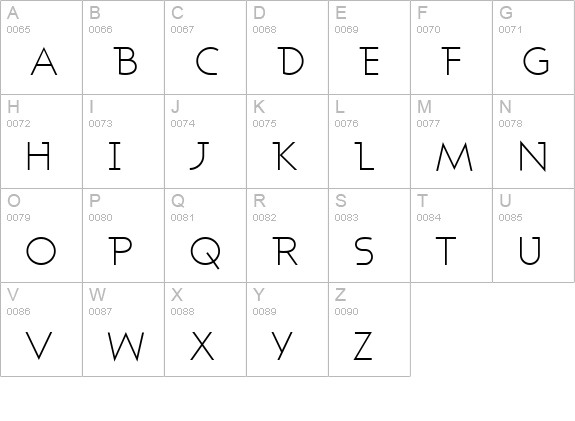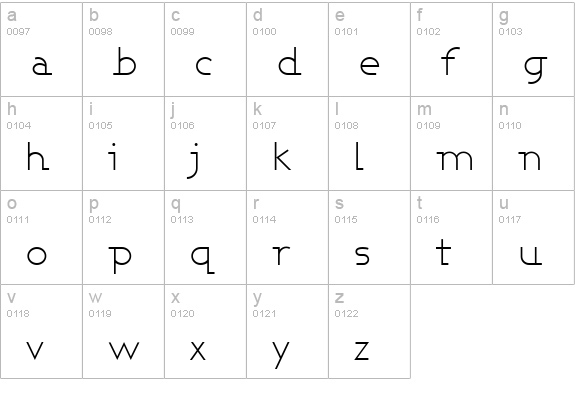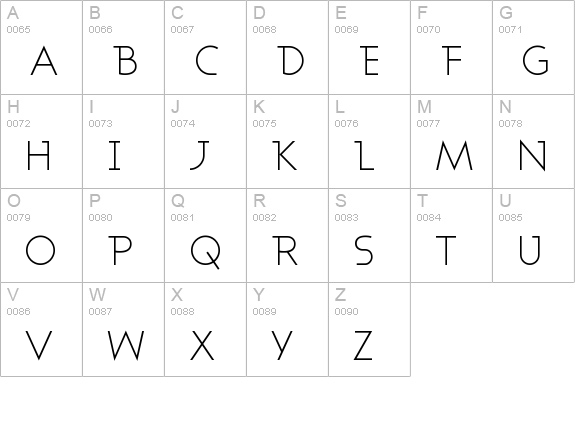
Ashby Light Font Details
Ashby Light is a refined, elegant variant in the Ashby typeface family \xE2\x80\x94 well suited to elegant body text, refined sub-headings, and luxury branding.
Ashby Light is a modern and elegant typeface that exudes sophistication and style. With its clean lines and graceful curves, this font is perfect for a wide range of design projects, from branding to editorial design. The light weight of Ashby Light adds a touch of delicacy and refinement to any text, making it ideal for conveying a sense of elegance and professionalism. What's even better is that Ashby Light is available for free download at FontsMarket.com. This means you can easily access this stunning font and use it in your projects without breaking the bank. So why wait? Enhance your designs with the timeless beauty of Ashby Light today.